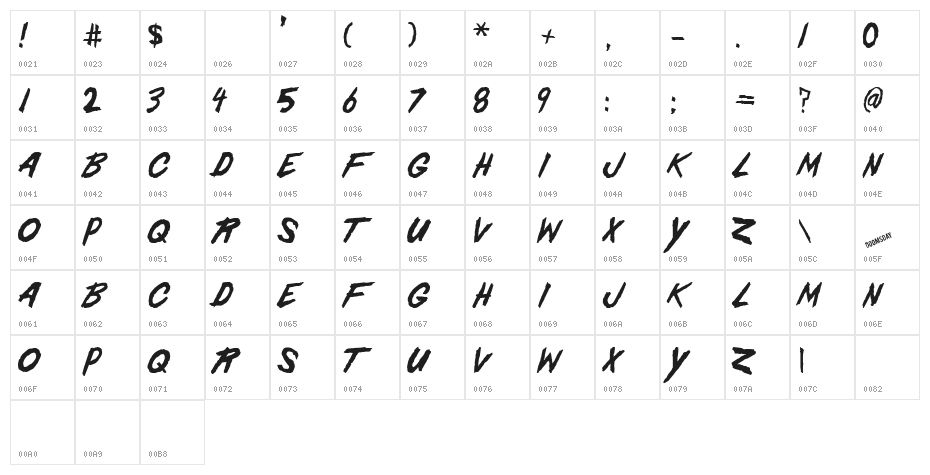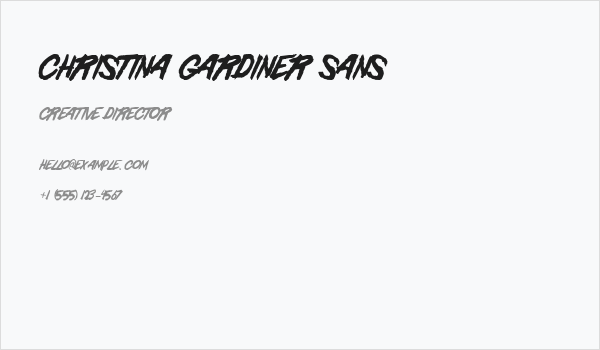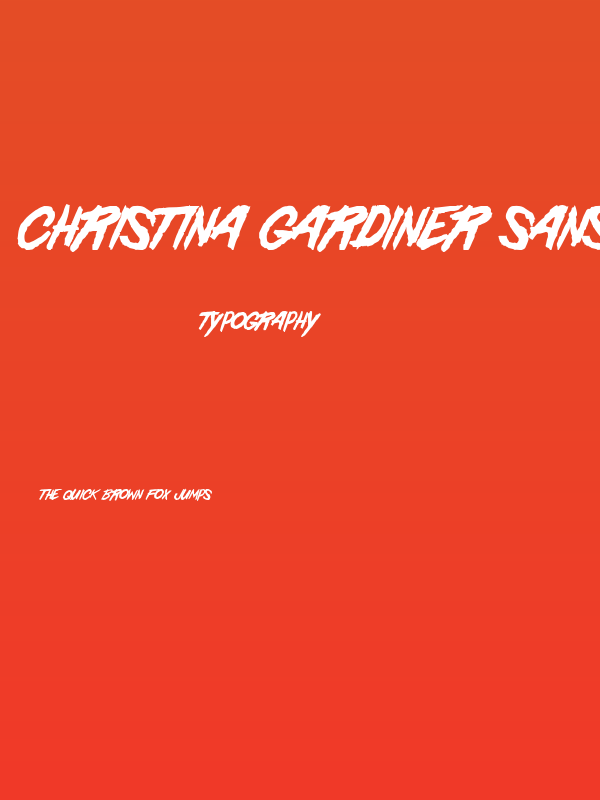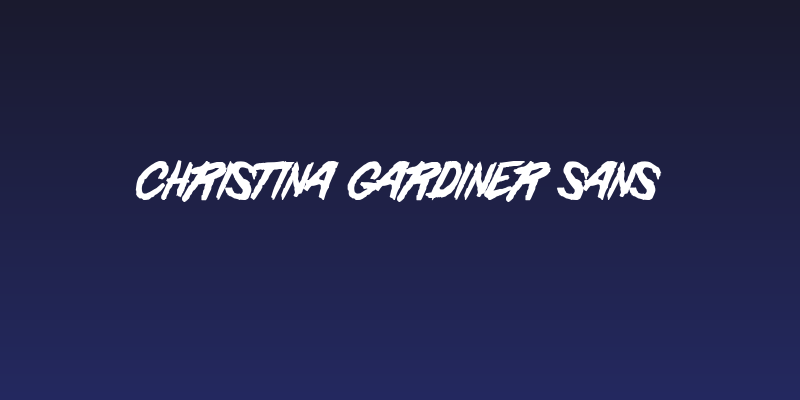
Christina Gardiner Sans Font
Christina Gardiner Sans Description
This font features a bold and dynamic script style with a strong presence. The characters are designed with a brush-like texture, giving them an energetic and artistic flair. The uppercase and lowercase letters maintain a consistent flow, while the numbers and special characters complement the overall aesthetic. The strokes are thick and expressive, creating a sense of movement and vitality. This font is ideal for projects that require a bold statement and a creative touch.